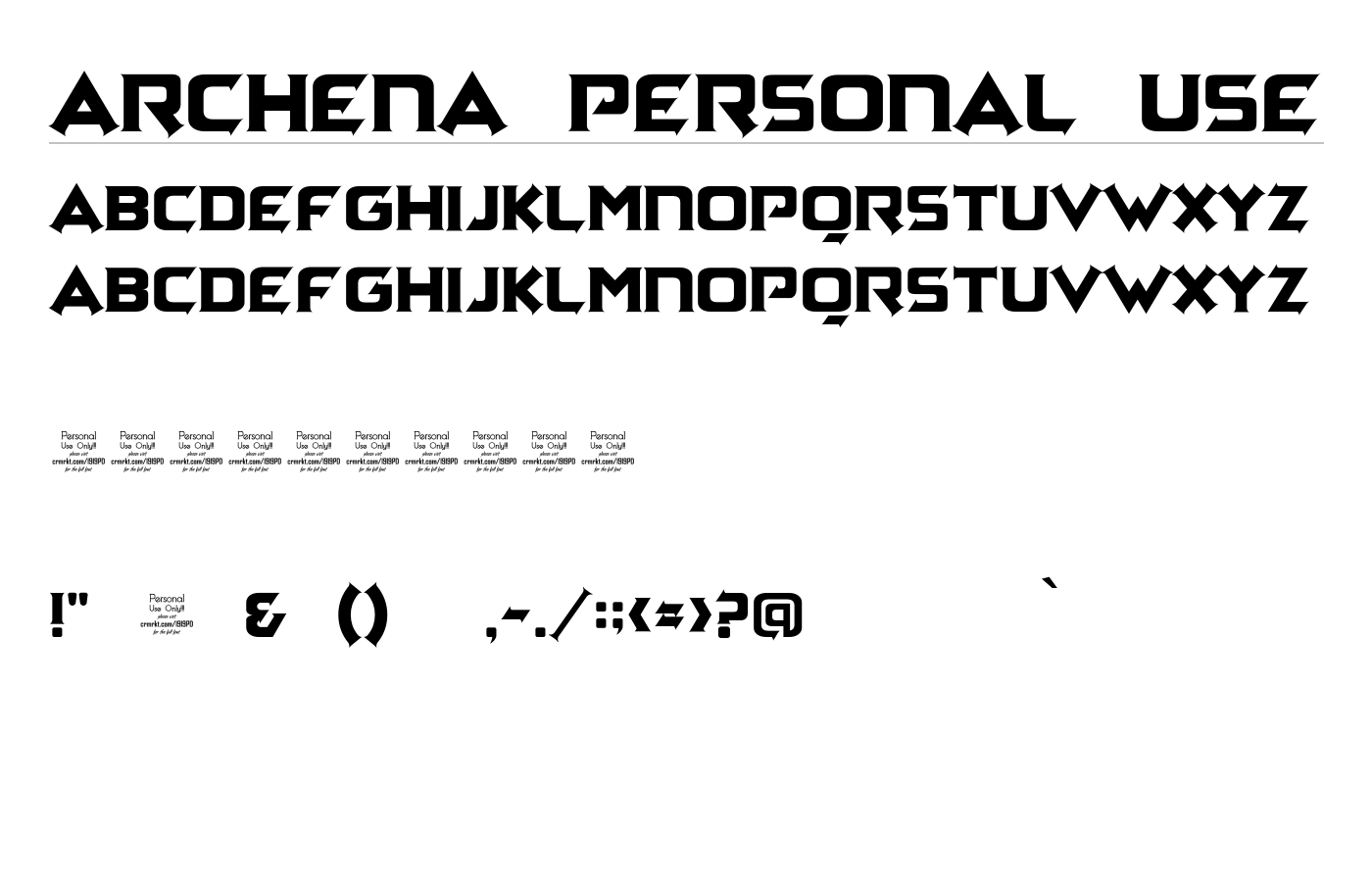
Archena Personal Use is a bold, geometric display font with sharp, angular edges and strong contrast, giving it a futuristic and dynamic feel. Its all-uppercase design with distinctive letterforms, such as pointed serifs and stylized terminals, makes it perfect for eye-catching headlines, logos, and branding that require a modern yet edgy look. This font works well in creative projects needing a powerful and unique typographic presence.
Archena Personal Use Font
About Archena Personal Use Font